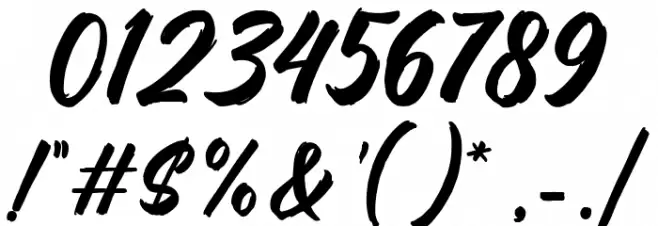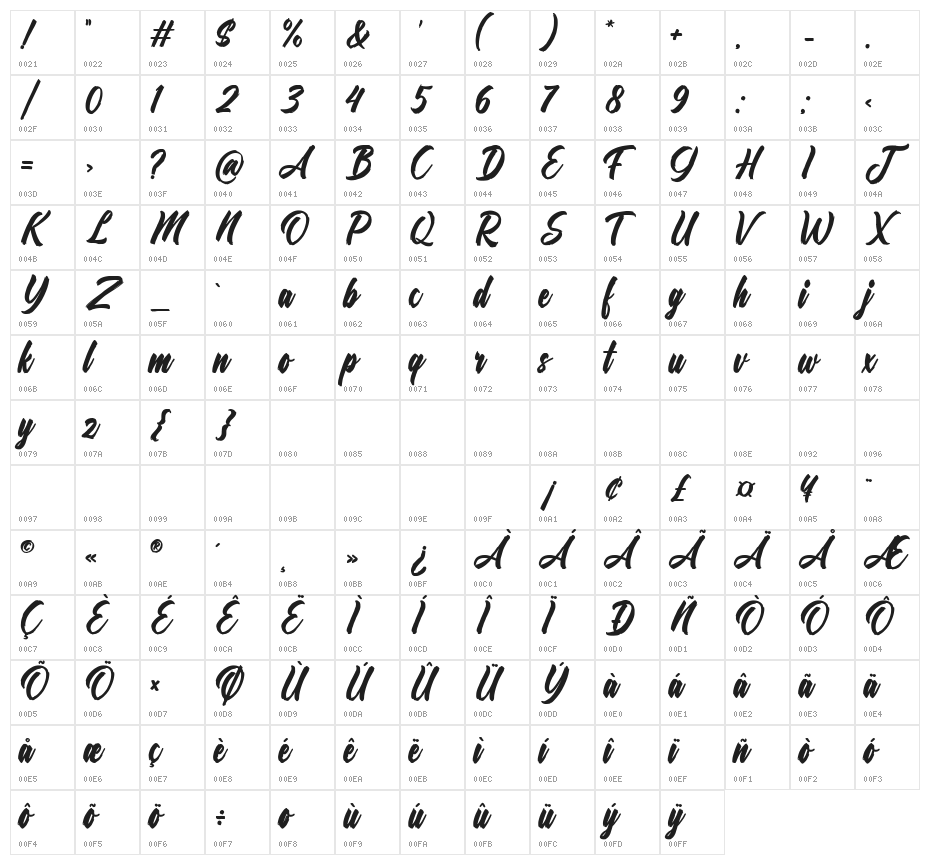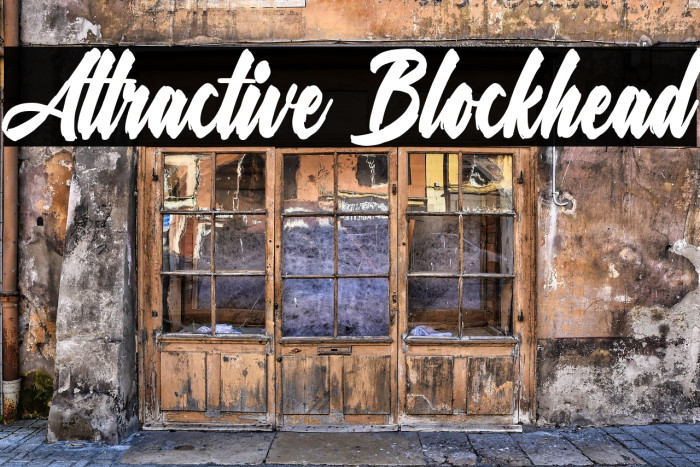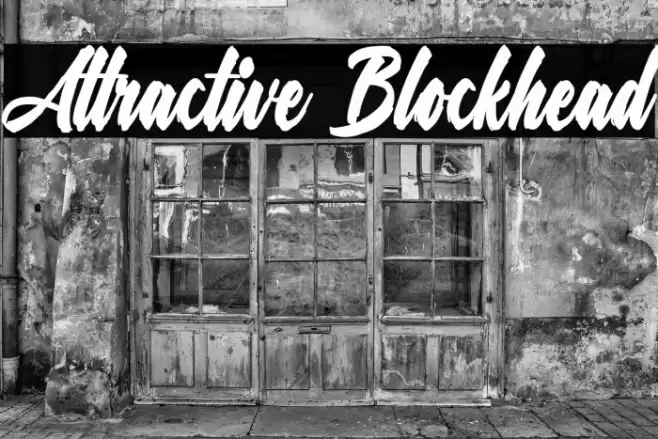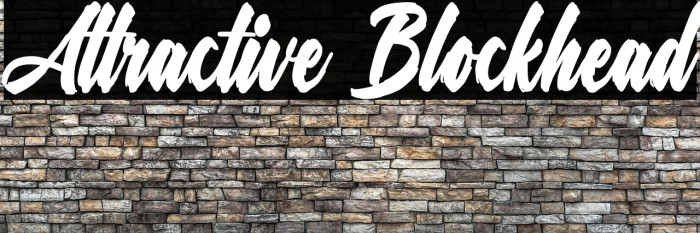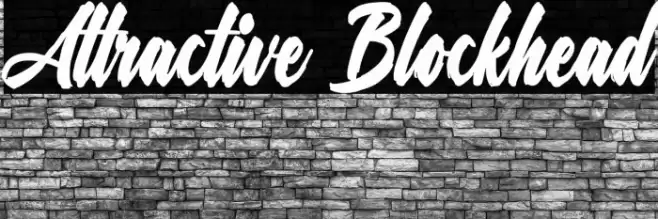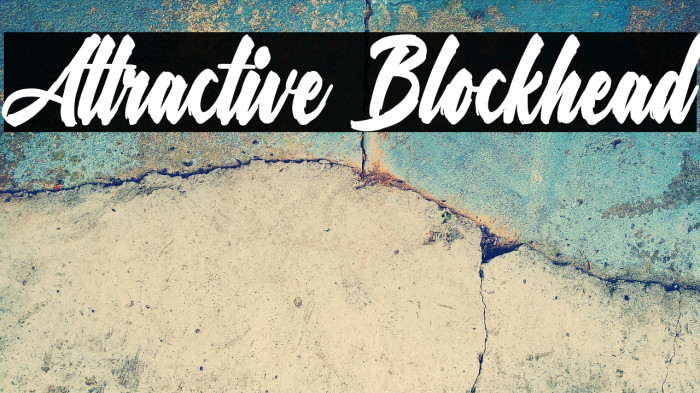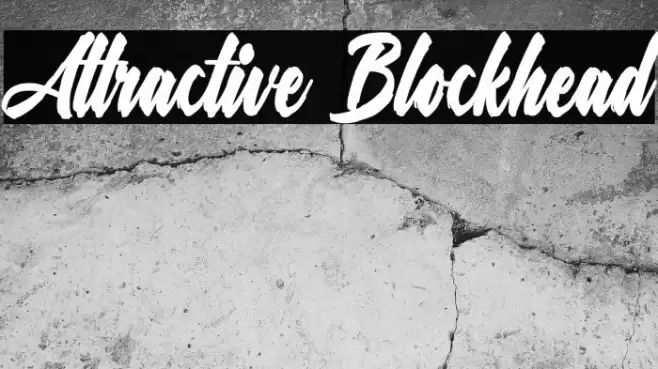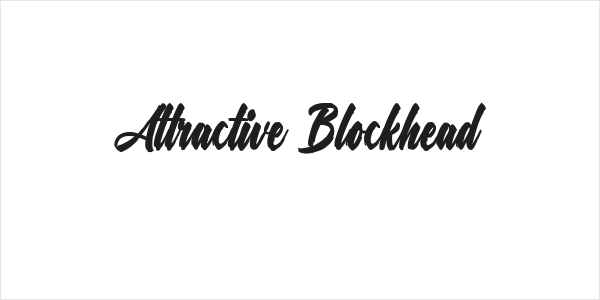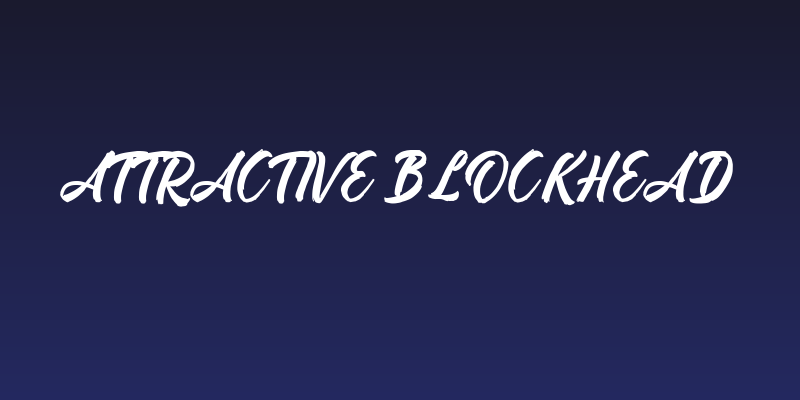
Attractive Blockhead Font
Attractive Blockhead Description
This font features a bold, cursive style with a strong presence. The letters are connected, creating a flowing and dynamic appearance. The strokes are thick, giving it a robust and impactful look. The uppercase letters maintain a consistent height, while the lowercase letters have a slight slant, enhancing the cursive effect. Numbers and special characters are designed to match the boldness and fluidity of the alphabet, making the font suitable for attention-grabbing designs. The overall aesthetic is both elegant and assertive, ideal for projects that require a touch of sophistication and boldness.